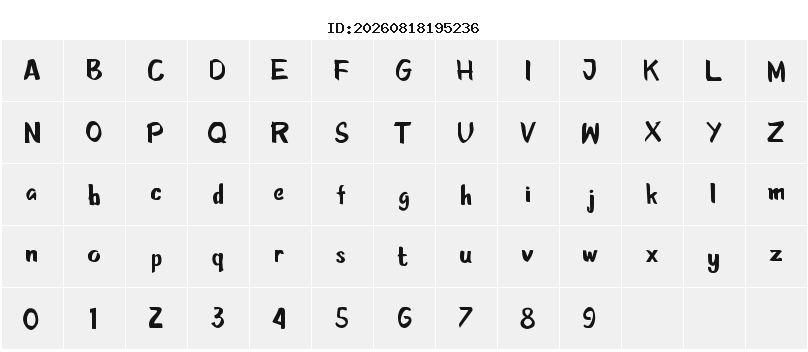
Sketcha Preview
• Font Name: Sketcha
• Font ID: Sketcha
• Full Font Name: Sketcha
About Sketcha.ttf
Sketcha.ttf is a modern, elegant sans-serif font designed for ultimate readability and visual harmony. Perfect for branding, headlines, web design, and print materials.